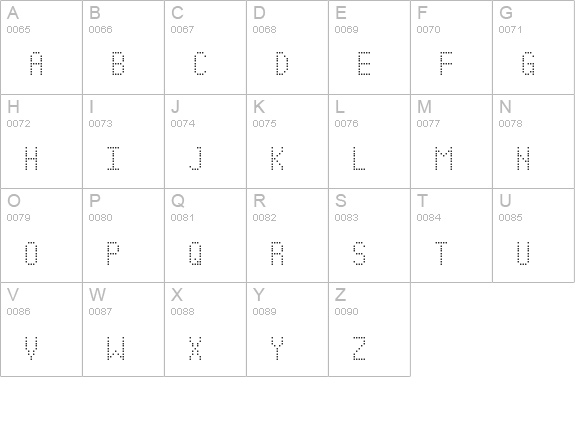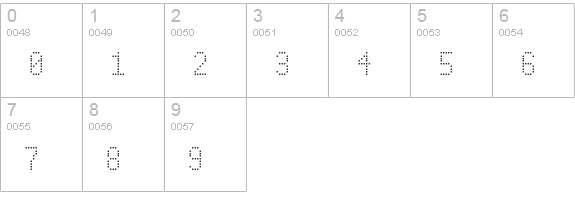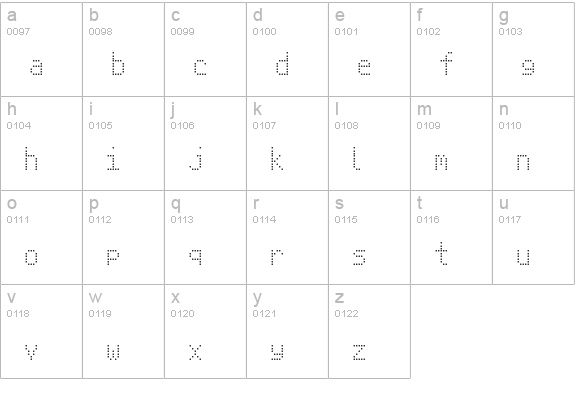
Signus Digital Round NBP Font Details
Introducing the remarkable Signus Digital Round NBP font, a captivating typeface that effortlessly combines modernity and elegance. With its clean lines and rounded edges, this font exudes a sense of sophistication that is sure to catch the eye of designers and typographers alike. Designed with versatility in mind, Signus Digital Round NBP is the perfect choice for a wide range of projects. Whether you're creating a sleek logo, designing a striking poster, or crafting an engaging website, this font will elevate your work to new heights. One of the most appealing aspects of Signus Digital Round NBP is its ability to convey a sense of professionalism while maintaining a friendly and approachable demeanor. This makes it ideal for corporate branding, as it effortlessly bridges the gap between professionalism and warmth. But perhaps the most exciting aspect of Signus Digital Round NBP is that it is available for free! Yes, that's right, this exceptional font can be freely downloaded at FontsMarket.com, ensuring that designers and creatives of all backgrounds can access and utilize this stunning typeface without any limitations. So why wait? Elevate your designs and captivate your audience with the remarkable Signus Digital Round NBP font. Download it today at FontsMarket.com and unlock a world of design possibilities.